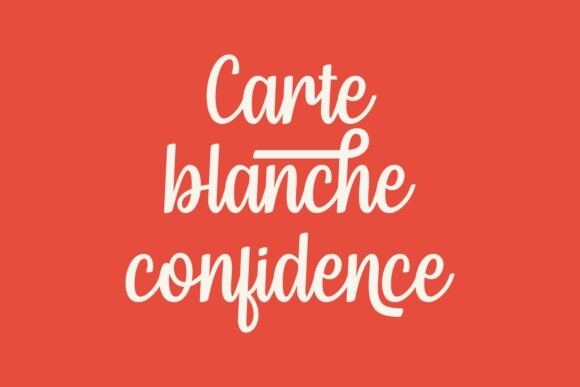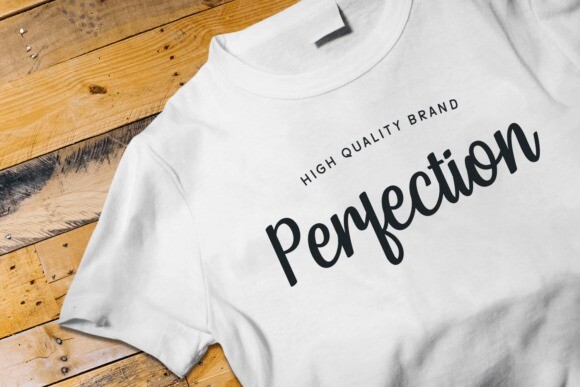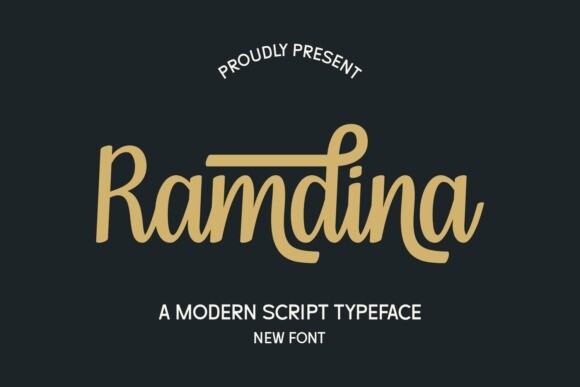
Ramdina Font
Ramdina Font is a beautiful script font that flows elegantly. It has graceful curves and a handwritten style, making it perfect for invitations, greeting cards, and personal projects. The letters connect smoothly, giving it a friendly and warm feel. Ideal for adding a touch of charm to any design!